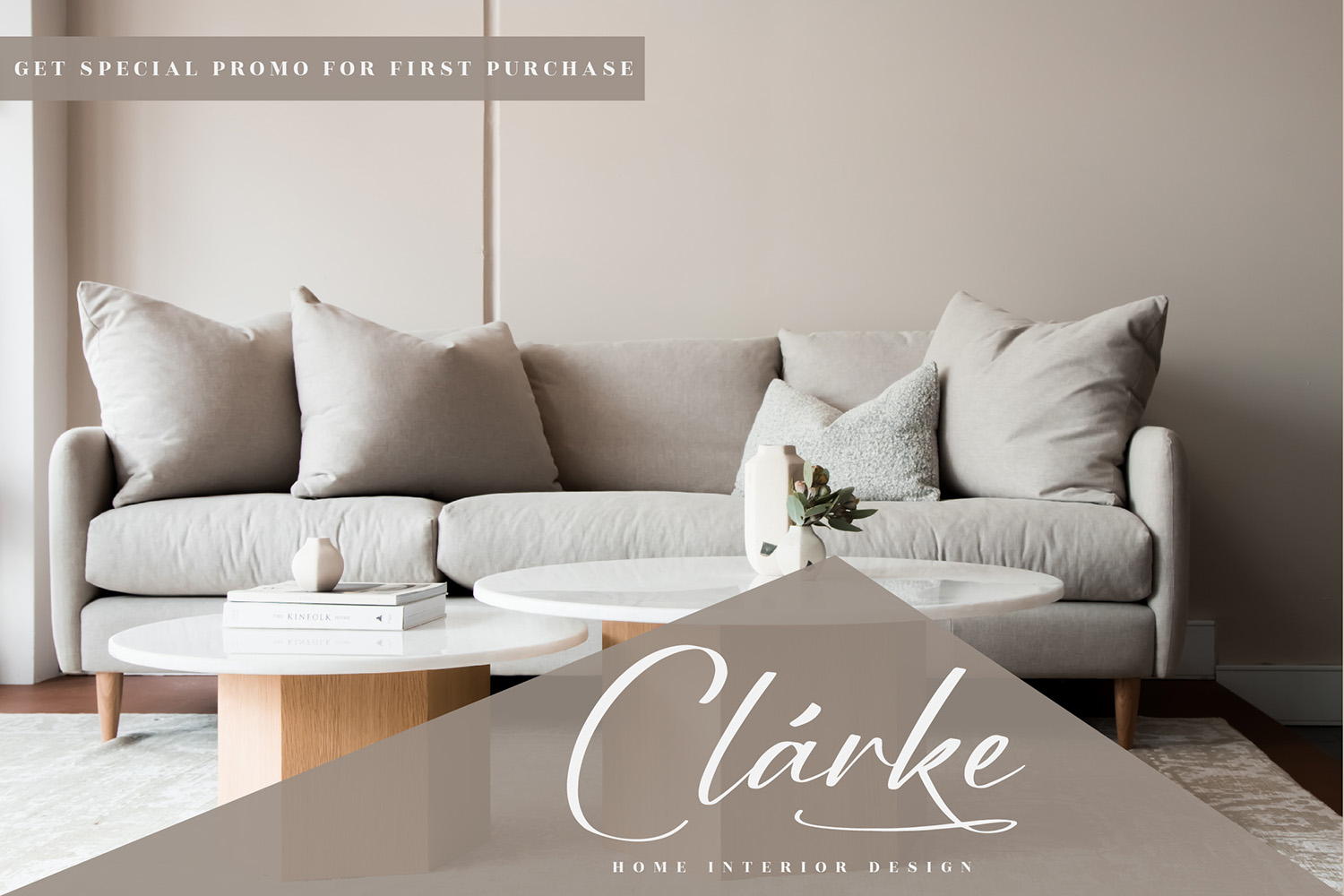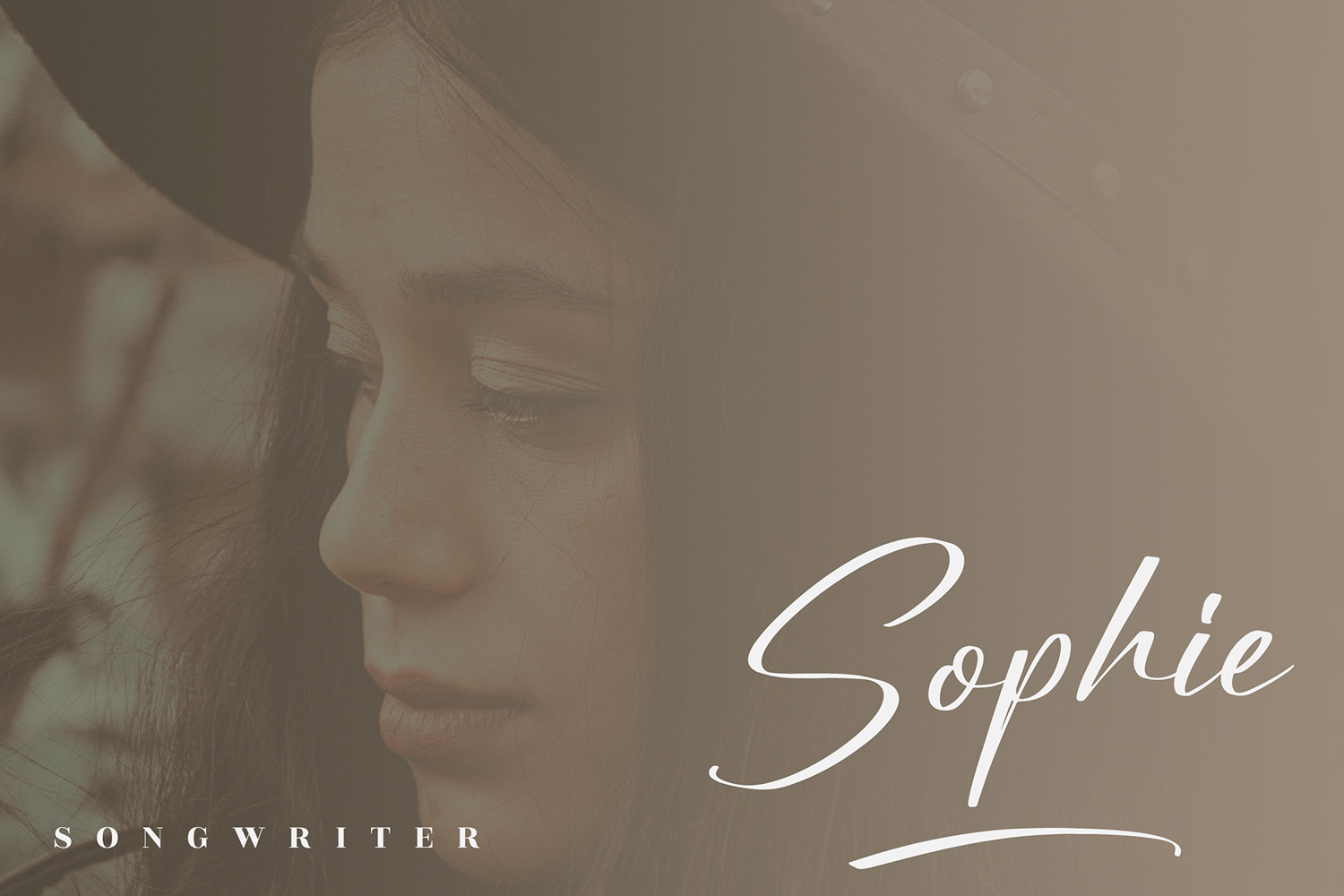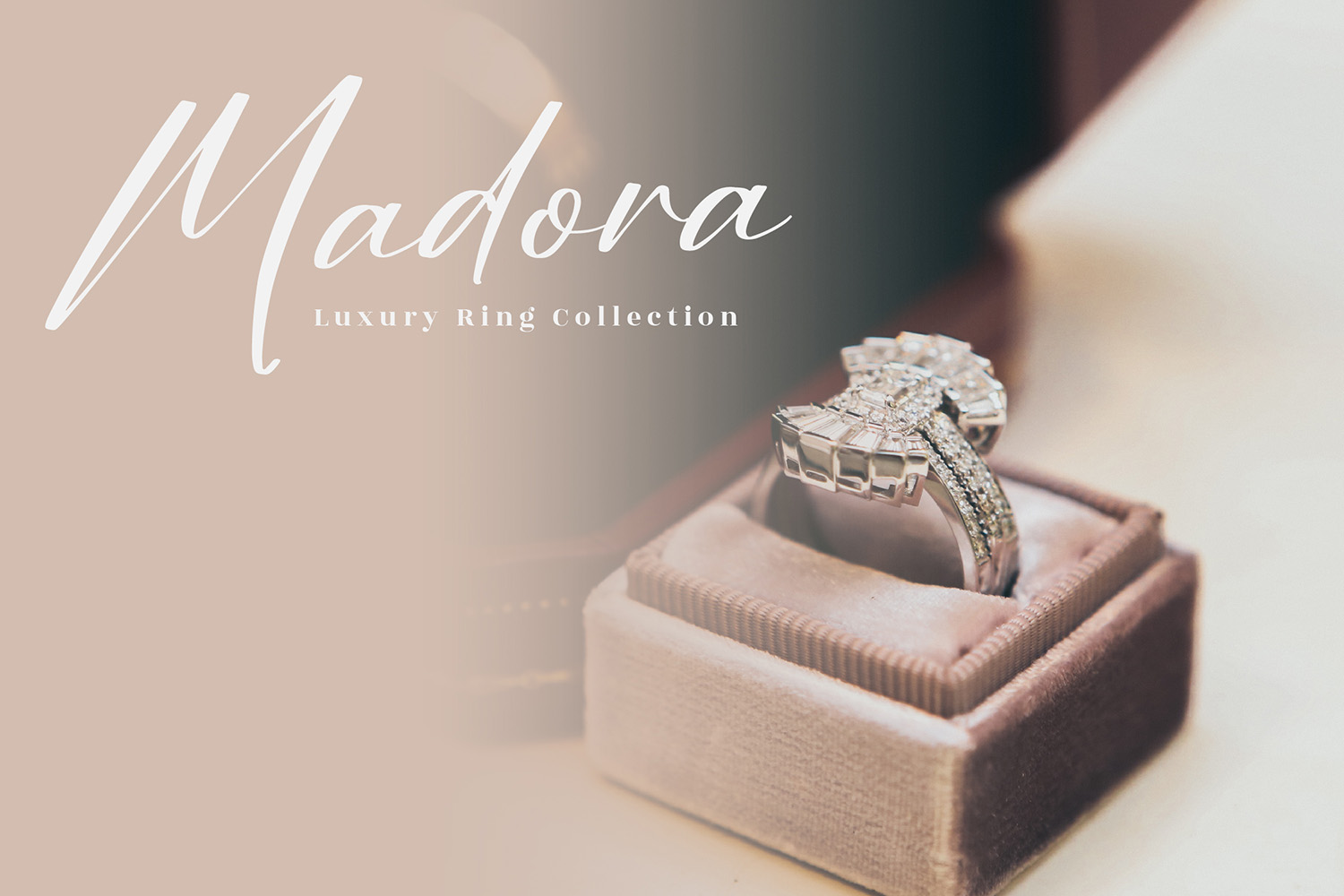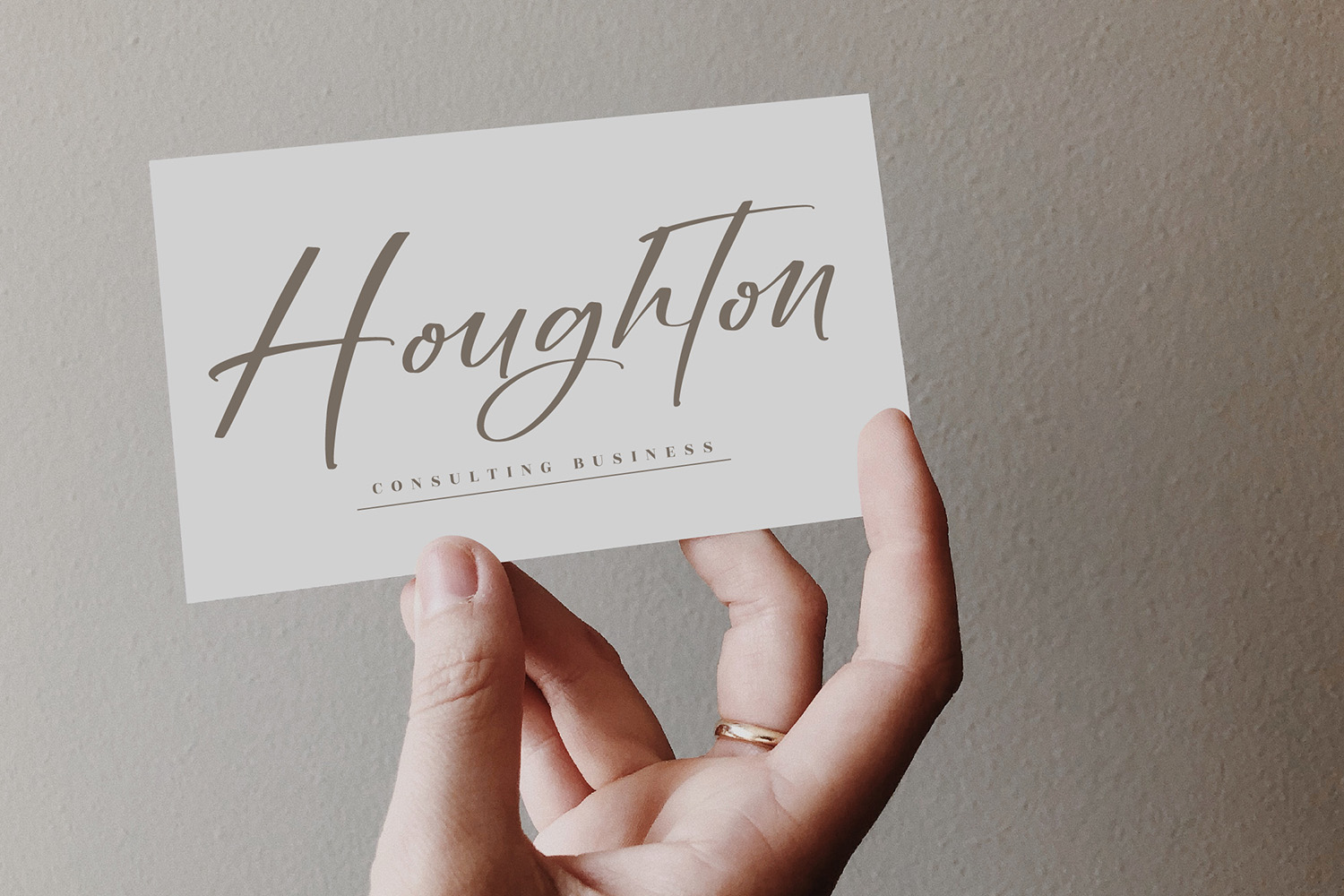
Nighty Bright Free Font
Nighty Bright Free Font emerges as a enchanting script font, meticulously crafted to embody a touch of refined elegance. This free typeface was designed by a talented Glorytype Studio. If you like it don’t forget to check out the full version.